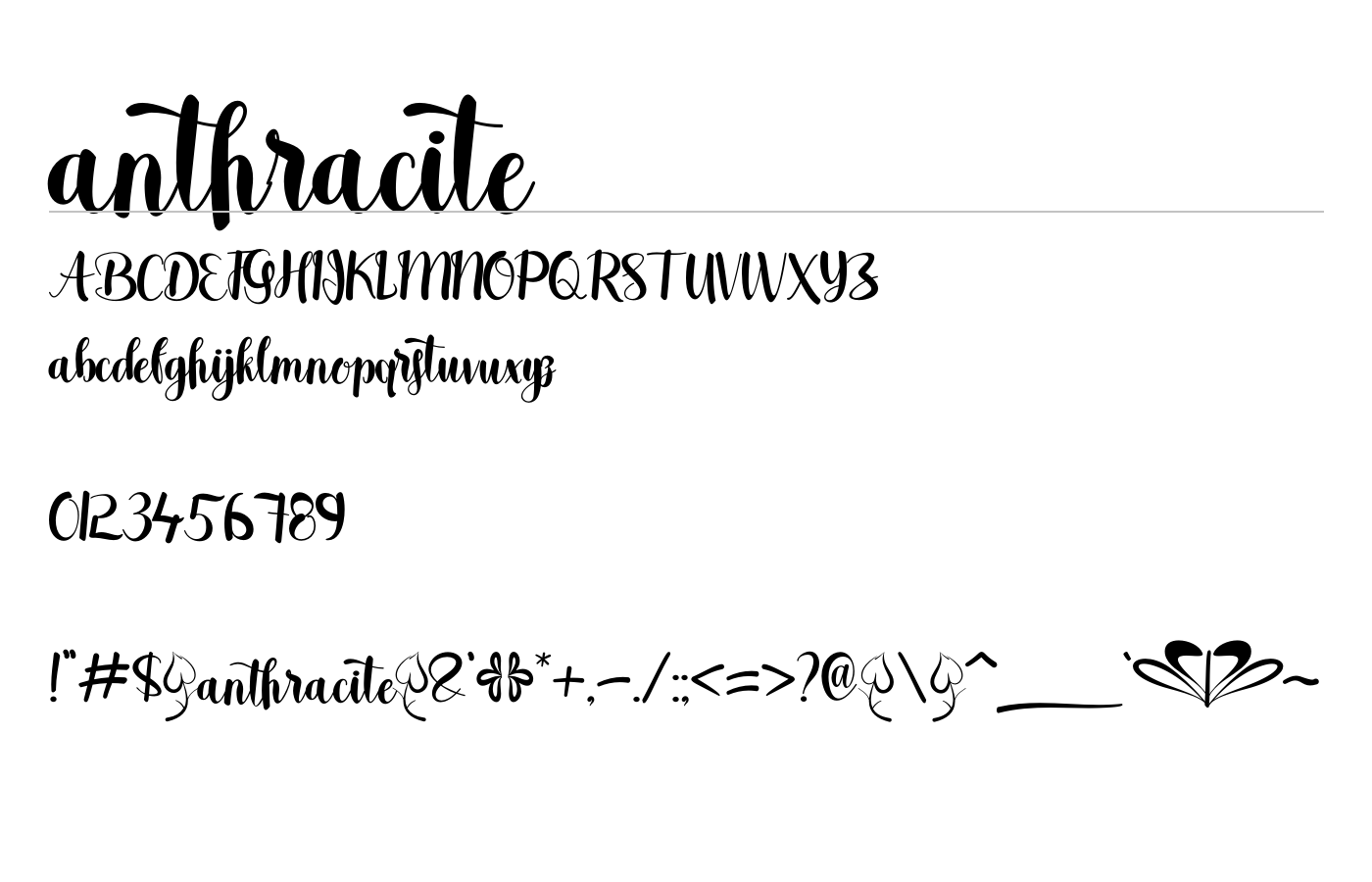
Anthracite is a lively, decorative script font with bold, flowing strokes and elegant flourishes that give it a hand-lettered charm. Its playful yet refined style is perfect for adding a graceful, artistic touch to invitations, branding, or headlines where a personal and stylish feel is desired. This font shines in designs seeking a blend of sophistication and warmth with a creative, handcrafted vibe.
anthracite Font